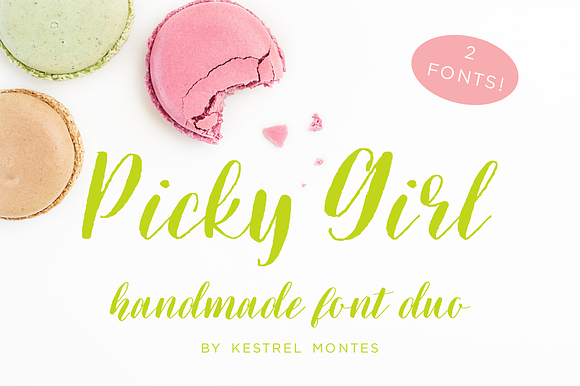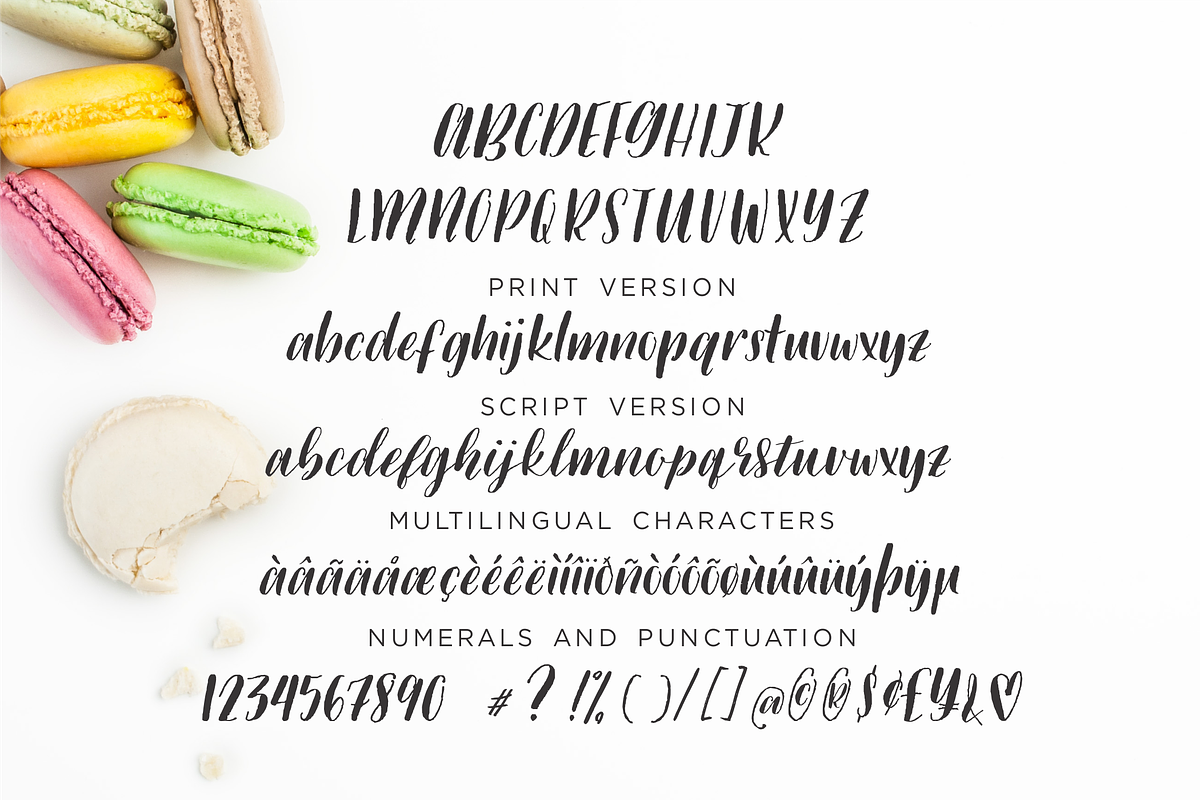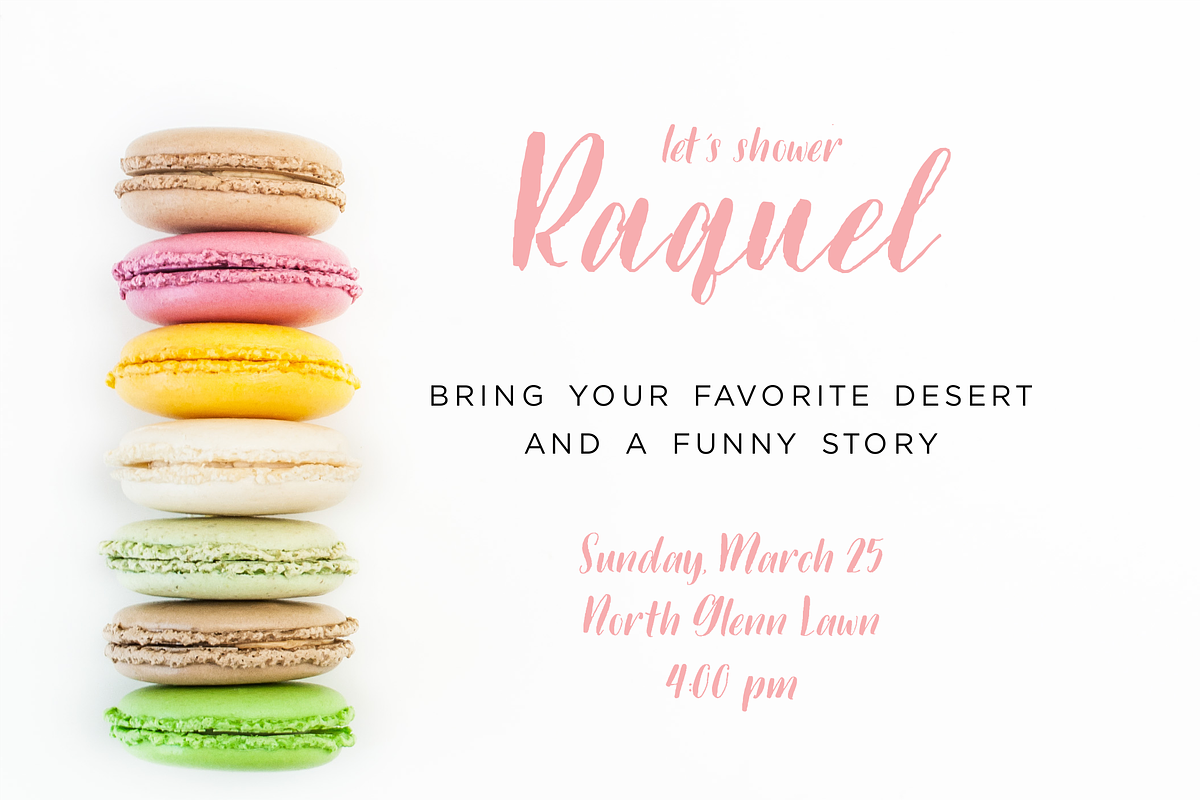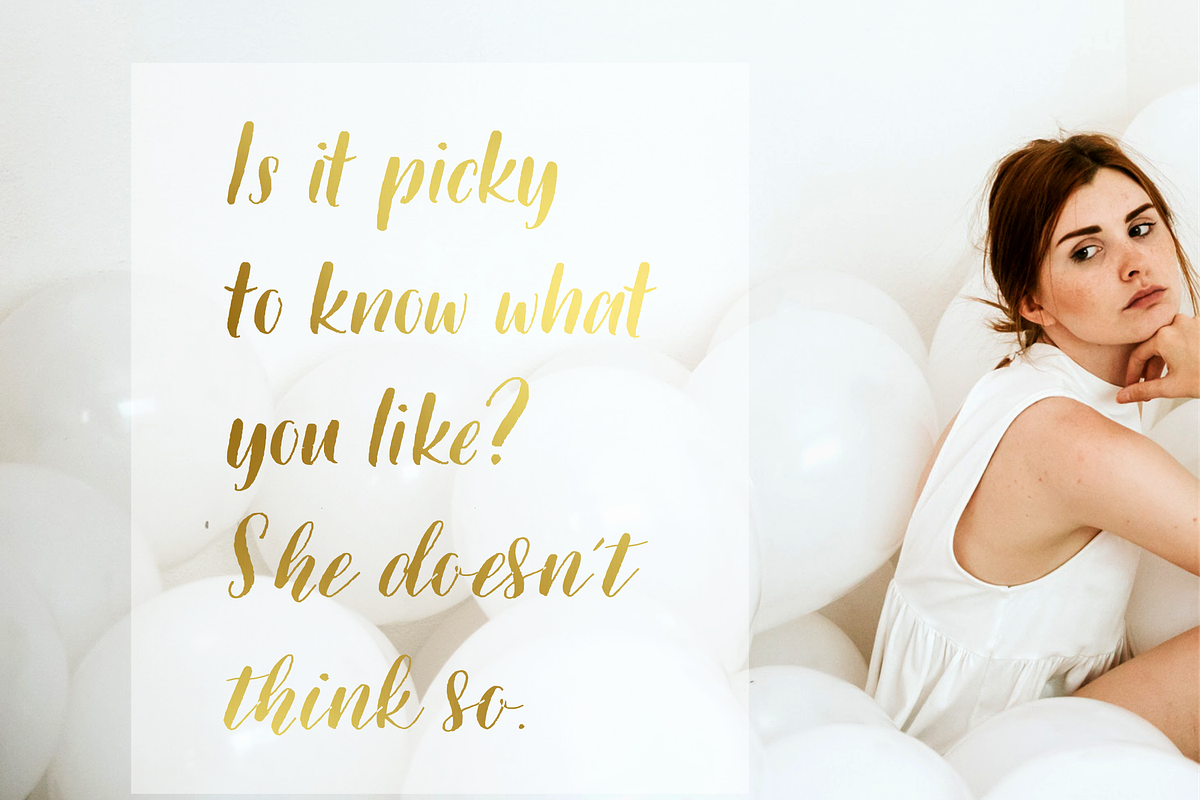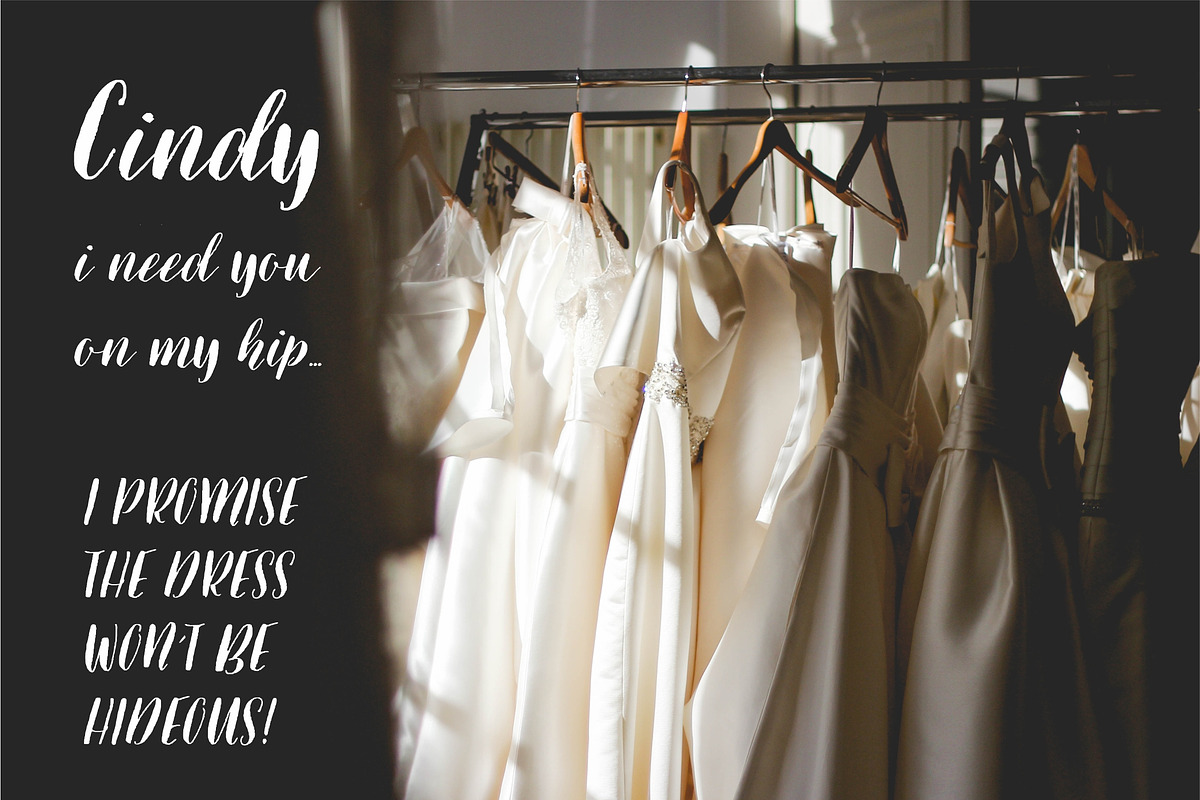
Picky Girl Font Pair
Picky Girl by Kestrel Montes is perky and sassy modern font complemented by it's script version, Picky Girl Too. These fonts were created with a pointed calligraphy nib but written in the style of modern brush lettering. How's that for a fun twist!
• Both Picky Girl and Picky Girl Too (Yep, 2 complete fonts here!)
• 200 characters including lots of multilingual characters and punctuation